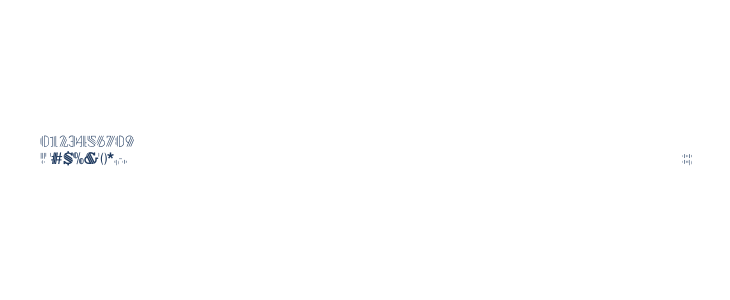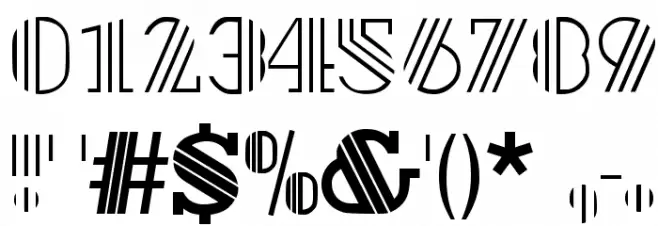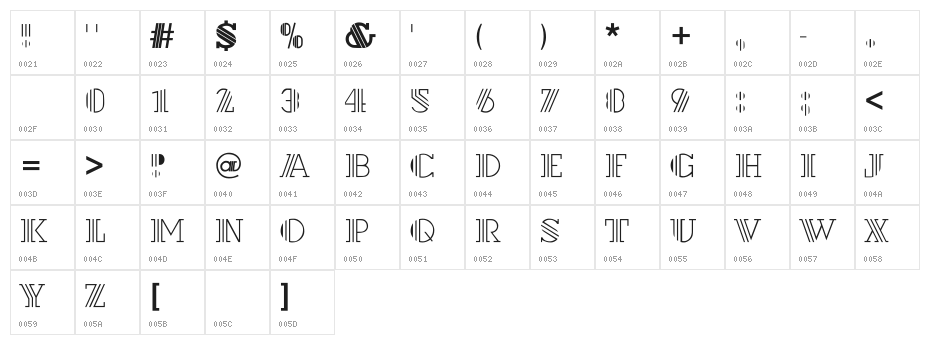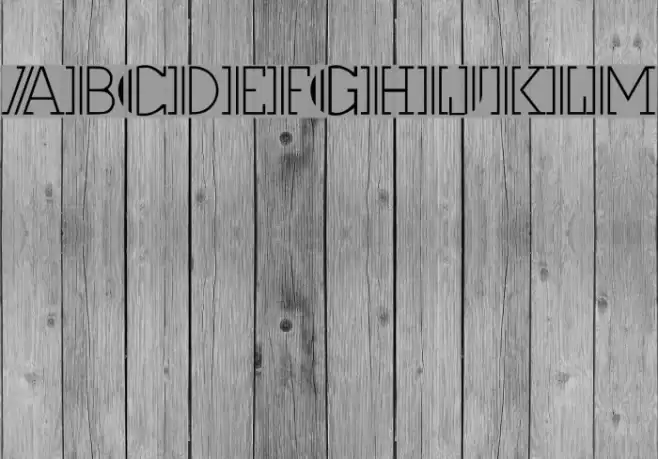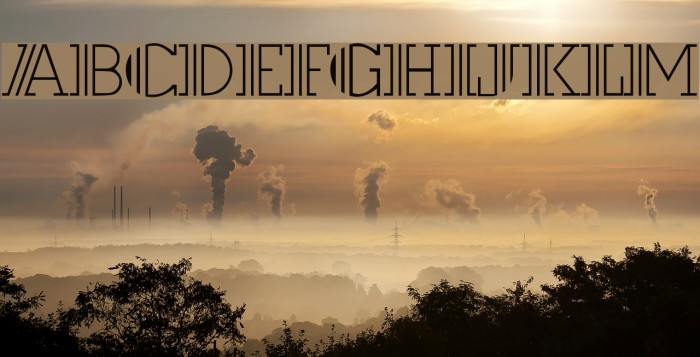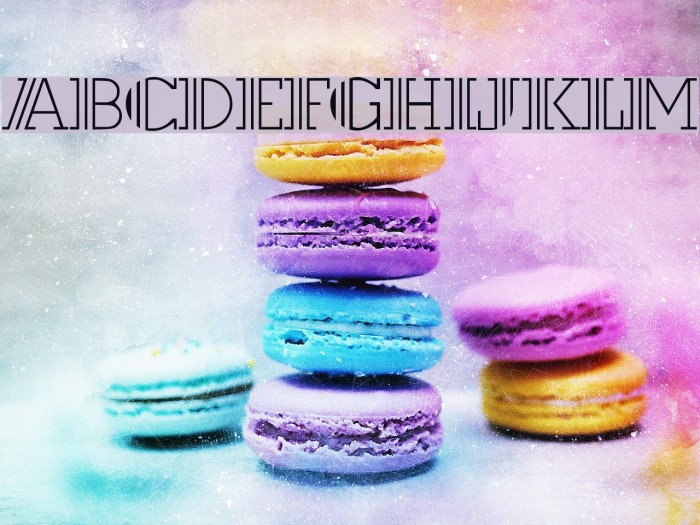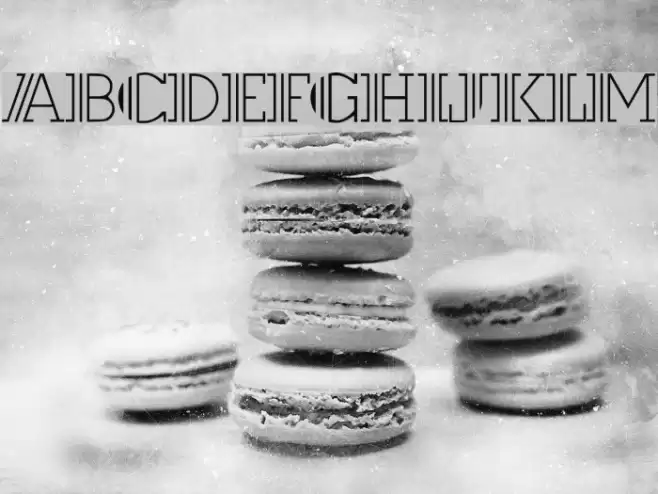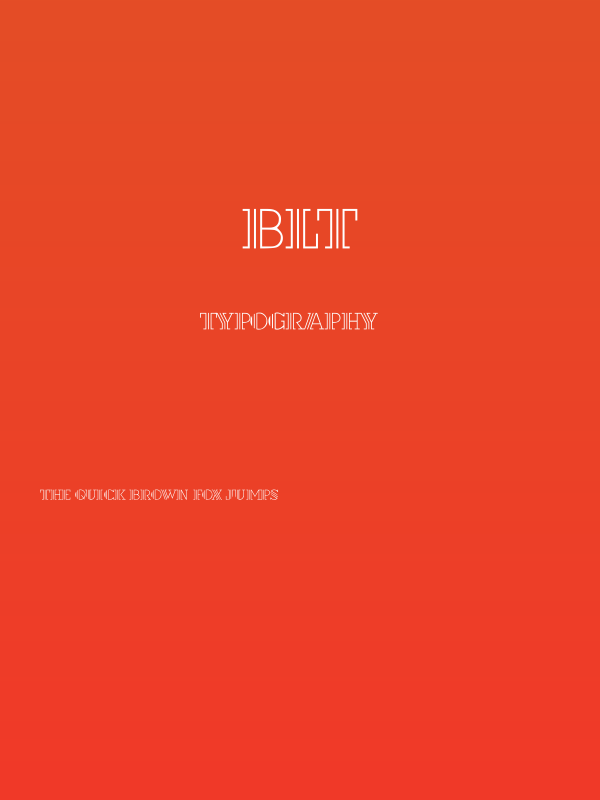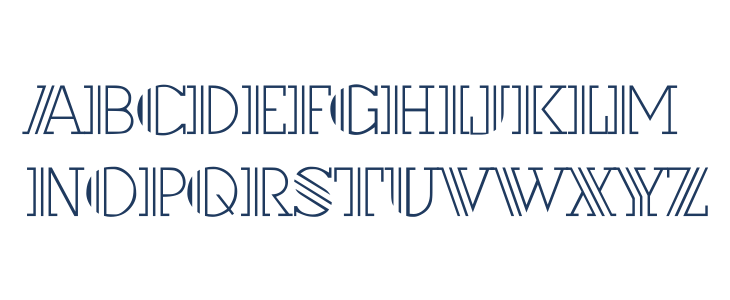
BLT Font
BLT Description
This font features a unique and modern design with a distinct geometric style. Each character is constructed with a series of parallel lines and sharp angles, creating a sense of movement and energy. The uppercase and lowercase letters maintain a consistent height, while the numbers and special characters follow the same design principles, ensuring uniformity across all glyphs. The font's aesthetic is both futuristic and stylish, making it ideal for projects that require a bold and eye-catching typeface. Its intricate line work and symmetrical shapes give it a decorative quality, suitable for creative and artistic applications.
| Proposed Projects | Ideal for branding, posters, album covers, and any creative projects that require a bold, modern typeface. |